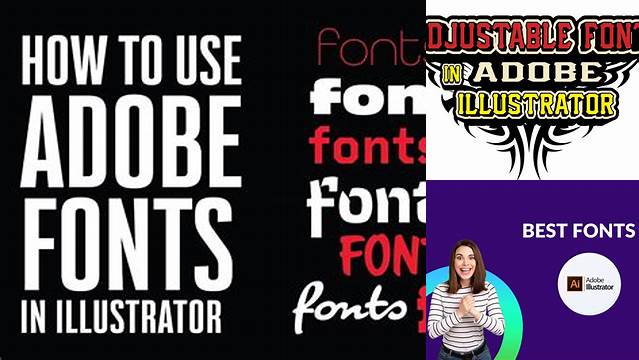
Awesome Free Fonts For Adobe Illustrator
Hey everyone! If you're diving into the world of graphic design with Adobe Illustrator, you know that having the right fonts can make or break your project. But let's be real, buying fonts can get expensive, fast! That's where free fonts swoop in to save the day. I'm talking about the best free fonts for Adobe Illustrator that will give your designs a professional look without emptying your wallet. I've compiled a list of some seriously awesome fonts that are perfect for everything from logos and websites to posters and social media graphics. Get ready to level up your Illustrator game and explore the world of typography! Let's dive into the incredible world of free fonts, ensuring your Adobe Illustrator projects are not just functional but also aesthetically pleasing. The right font can be the secret ingredient to captivating your audience. Discover the best free fonts for Adobe Illustrator now!
1. Discovering the Top Free Font Resources for Illustrator
Finding the best free fonts for Adobe Illustrator can feel like searching for a needle in a haystack. But don't worry, I've got you covered, guys! There are tons of websites out there that offer amazing free fonts, but not all of them are created equal. It's important to choose sources that are reliable and offer fonts with clear licensing terms. This ensures you can use the fonts for both personal and commercial projects without any legal headaches. One of the best places to start is Google Fonts. It's a massive library with a huge selection of high-quality, open-source fonts. You can easily browse and download fonts, and they're all free to use. Plus, they're optimized for web use, so they'll look great in your Illustrator designs whether you're creating print or digital assets. Another great resource is Font Squirrel. They hand-pick their fonts, so you know you're getting high-quality options. They also have a handy license checker, which is super helpful for making sure you understand how you can use each font. DaFont is another popular option, but just be sure to double-check the license for each font before you use it. Some fonts may only be free for personal use. Remember, always check the license before you download and use any font. This is crucial to avoid any copyright issues down the line. Pay attention to the font's terms of use; some might require attribution, while others are completely free to use without restrictions. By utilizing these resources, you'll have access to a vast and diverse collection of fonts to elevate your Illustrator projects. Remember to download fonts from reputable sources to ensure they're safe and virus-free. Also, consider the font's legibility and versatility before integrating it into your design.
1.1. Google Fonts: Your Go-To Library
Google Fonts is undeniably a cornerstone resource when it comes to finding the best free fonts for Adobe Illustrator. It's a vast, user-friendly library brimming with high-quality fonts, all available for free use. Its open-source nature guarantees versatility, enabling use in both personal and commercial endeavors without the worry of licensing fees. A standout feature of Google Fonts is its seamless integration across various platforms, making it incredibly convenient for Illustrator users. You can easily browse, preview, and download fonts directly to your computer, ready for immediate use within your design projects. Furthermore, Google Fonts offers excellent web optimization, ensuring your fonts will look sharp and clear whether you're creating print materials or digital graphics. The collection is constantly updated, introducing fresh, contemporary fonts to keep your design options current and exciting. A remarkable aspect of Google Fonts is its intuitive categorization and filtering system. You can filter by font style (serif, sans-serif, monospace, etc.), thickness, and character sets, allowing you to rapidly pinpoint the perfect font for your specific needs. This efficient search mechanism saves valuable time, allowing you to concentrate on your creative process. Each font is equipped with detailed information, including its design history, intended uses, and related fonts, providing you with comprehensive insight to help you make informed decisions. The platform's accessibility also adds to its appeal; you can preview your text in different sizes and styles directly on the website, enabling you to visualize how each font will appear in your designs. Considering its vast selection, ease of use, and cost-effectiveness, Google Fonts truly stands out as an essential resource for any Adobe Illustrator enthusiast. Always download fonts from the official Google Fonts website to ensure safety and authenticity. Explore different combinations to discover new design possibilities and create visually captivating works.
1.2. Font Squirrel: Handpicked Fonts for Quality
Font Squirrel is a fantastic resource for those seeking the best free fonts for Adobe Illustrator, especially if you prioritize quality and licensing clarity. This platform distinguishes itself by hand-selecting its fonts, ensuring a higher standard of design and usability. This curated approach saves you from the hassle of sifting through countless options, guaranteeing that every font available is of good quality. The website's primary appeal lies in its focus on fonts that are free for commercial use, removing any doubt about legal restrictions when integrating fonts into your Illustrator projects. Font Squirrel offers a user-friendly interface with clear licensing information for each font, making it simple to understand how you can use each one. The license checker is a particularly valuable feature, providing a quick way to verify usage rights before downloading and applying a font to your designs. This helps avoid potential copyright issues, ensuring you have peace of mind knowing you're compliant with the terms. The fonts are well-organized, and you can easily browse by style, popularity, and other helpful categories. Font Squirrel also provides useful tools like the Font Identifier, where you can upload an image of a font and have the site identify the typeface. This feature can be extremely helpful when you're trying to match a font used in another design. Additionally, the site is known for its high-quality downloads and reliable sources, offering a selection of fonts that are both visually appealing and technically sound. Font Squirrel's commitment to providing excellent fonts that are free for commercial use makes it a go-to destination for designers. By using Font Squirrel, you're ensuring that your Illustrator projects incorporate professional, high-quality fonts. Remember to always double-check the licensing terms to be absolutely sure before using a font. Experiment with different fonts and combinations to add a professional touch to your designs.
1.3. DaFont: A Popular Choice, with a Caveat
DaFont is a well-known platform, offering a vast array of fonts, making it a popular option for designers searching for the best free fonts for Adobe Illustrator. Its extensive library includes thousands of fonts across various styles, ensuring you can find something for almost any design need. However, users must approach DaFont with a crucial caveat: licensing. While DaFont provides numerous free fonts, not all of them are licensed for commercial use. Therefore, meticulous attention to the font licenses is paramount. Always meticulously review each font's license before incorporating it into your Illustrator projects. This vital step ensures you adhere to the usage terms and avoid potential copyright infringement. DaFont's user-friendly interface and search features simplify the font discovery process. You can explore fonts by category, style, and theme, facilitating quick and efficient searches. The platform also offers a preview feature, allowing you to view how your text will look in a specific font before downloading. Despite its wide selection, the licensing variability is a key consideration. Some fonts may be free for personal use only, while others might require attribution or specific usage guidelines. Therefore, the responsibility is on the user to carefully check the license information for each font. DaFont provides a rich and diverse collection; however, the potential for licensing complications necessitates careful scrutiny. By diligently verifying licenses, you can fully leverage DaFont's resources. Understanding the license terms and applying them correctly is essential to avoid legal complications. Despite its popularity, its wide range of options requires users to verify font licenses carefully to ensure compliance.
2. Exploring Font Styles and Typography for Illustrator
When you're on the hunt for the best free fonts for Adobe Illustrator, understanding different font styles and typography principles can seriously up your design game. Font styles, such as serif, sans-serif, script, and display fonts, each offer unique characteristics that evoke different emotions and messages. Serif fonts, with their small decorative strokes, often convey a sense of tradition and authority, making them ideal for body text in documents or formal designs. Sans-serif fonts, on the other hand, lack these strokes and offer a clean, modern look, perfect for headings, website text, and contemporary design projects. Script fonts mimic handwriting and add a touch of elegance or playfulness, commonly used for invitations, logos, and branding materials. Display fonts are designed for headlines and short text, often with unique and eye-catching styles that grab attention. Typography, the art of arranging type, is equally important. Consider factors like font size, line spacing (leading), letter spacing (tracking), and word spacing. The right combination of these elements can significantly improve readability and visual appeal. Good typography ensures your text is easy to read and visually balanced. Always ensure that your chosen fonts complement each other. Avoid using too many different fonts in one design. Limit yourself to two or three fonts, varying styles, weights, and sizes, creating visual hierarchy. Font pairing is crucial; consider pairing a serif font for body text with a sans-serif font for headings. The goal is to create a balanced design. Pay attention to alignment and choose either left, right, center, or justified alignment based on your design's needs. Understanding and applying these typography basics ensures your designs look polished and professional, guiding the audience's eye and enhancing the overall message. Explore these guidelines to make your designs visually appealing and readable. Practice applying these design fundamentals in your Illustrator projects for optimal results.
2.1. Serif vs. Sans-Serif: Choosing the Right Font
Choosing between serif and sans-serif fonts is a fundamental decision when you're looking for the best free fonts for Adobe Illustrator. Both styles offer distinct visual characteristics that influence your design's overall tone and readability. Serif fonts, with their small decorative strokes (serifs) at the ends of letters, often convey a sense of tradition, formality, and authority. They're typically favored for body text in print publications like books, magazines, and long-form articles, as the serifs help guide the reader's eye across the lines of text, improving readability. These fonts can provide a classic and elegant feel, making them suitable for designs that require a touch of sophistication. On the other hand, sans-serif fonts, which lack these serifs, offer a clean, modern, and minimalist aesthetic. They are ideal for digital interfaces, headlines, and modern design projects where a contemporary feel is desired. Due to their simplicity, sans-serif fonts are often highly readable on screens, making them perfect for websites, apps, and other digital media. The choice between the two depends greatly on your project's purpose and audience. For instance, if you're designing a website for a luxury brand, a serif font might evoke a sense of prestige and timelessness. Conversely, if you're creating a tech startup's website, a sans-serif font may communicate innovation and simplicity. Consider readability and context when making your choice. The optimal selection depends on the intended design application. Evaluate the target audience's preferences and the message you aim to deliver. Remember to consider the font's visual impact and its suitability for various design applications. By understanding the characteristics of each font style, you can make informed decisions and create designs that resonate with your audience. Experiment with both serif and sans-serif fonts in your projects to understand their distinct attributes and application.
2.2. Script Fonts: Adding Elegance and Personality
Script fonts bring a touch of elegance and personality to your designs, making them a wonderful addition when searching for the best free fonts for Adobe Illustrator. These fonts mimic handwriting, offering a graceful and often highly stylized appearance. They're known for their flowing strokes and decorative elements, which add a personalized feel to your projects. Script fonts are particularly effective for conveying a sense of sophistication, creativity, or intimacy. They are frequently used in invitations, logos, branding materials, and social media graphics where a distinctive look is desired. Consider the specific style of script font, as they vary greatly. Some script fonts offer a formal, calligraphic appearance, while others exhibit a more casual, handwritten style. The choice depends on the overall aesthetic you want to achieve. Using script fonts requires careful consideration of legibility. Their decorative nature can sometimes make them difficult to read, especially at smaller sizes. Always ensure that the chosen font is easy to read, and use it sparingly, especially for body text. Due to their ornate and stylistic nature, script fonts work best when used for headlines, titles, or short phrases where visual impact is important. Also, when pairing with other fonts, it's important to balance the script font's decorative qualities with a simpler sans-serif or serif font. This contrast can create visual interest and ensure the design remains readable. Always prioritize readability. Experiment with different fonts to find ones that match your design aesthetic. Explore different weights and styles to fine-tune the impact of the font. These fonts contribute a unique aesthetic. Embrace the distinct visual effects and enhance your Illustrator designs. The careful selection and application of script fonts will add flair and charm to your projects.
2.3. Display Fonts: Making a Bold Statement
Display fonts are your secret weapon when you need to make a bold statement in your designs, making them essential when searching for the best free fonts for Adobe Illustrator. These fonts are designed to grab attention and command visual interest, often featuring unique and eye-catching styles that set them apart from other font categories. They are typically used for headlines, titles, and short text blocks where you want to create a significant impact. Display fonts come in a wide array of styles, including decorative, experimental, and highly stylized designs. They can range from bold and impactful to playful and quirky. The key is to select a display font that complements your design's overall theme and message. When using display fonts, it's important to consider legibility. Their stylistic nature can sometimes make them difficult to read, especially at smaller sizes. Ensure the font is easily readable, especially in the context of your design. Since display fonts are meant to stand out, it's important to use them sparingly. Pair them with simpler fonts for body text and supporting information to create a balanced design. Don't overdo the use of display fonts. Balance is key when using these fonts. Experimenting with different font styles helps you create visually interesting layouts. These fonts provide visual interest. These fonts often add a unique touch to your projects. The right display font can transform a simple design into something remarkable. Careful selection and strategic use of display fonts is a game-changer.